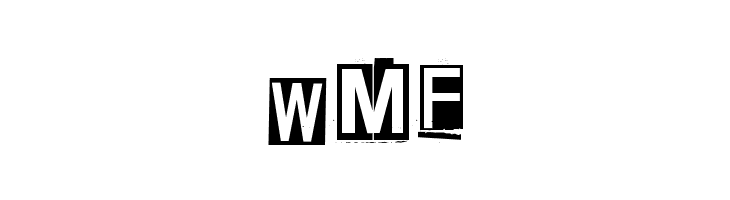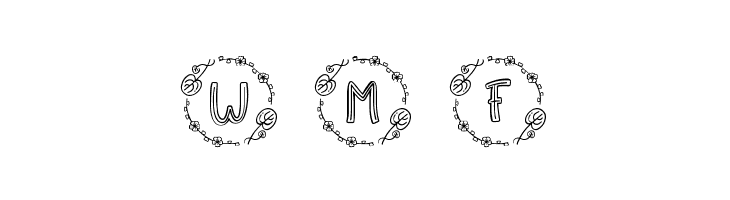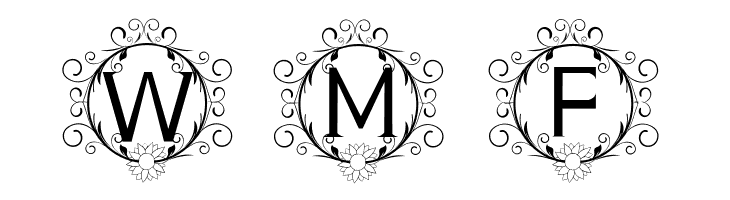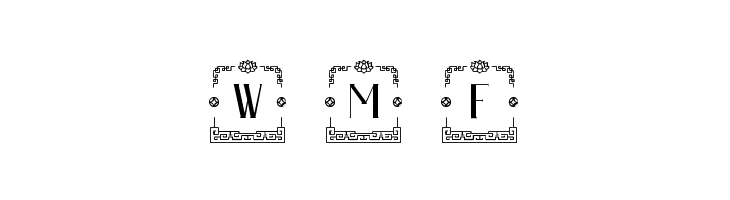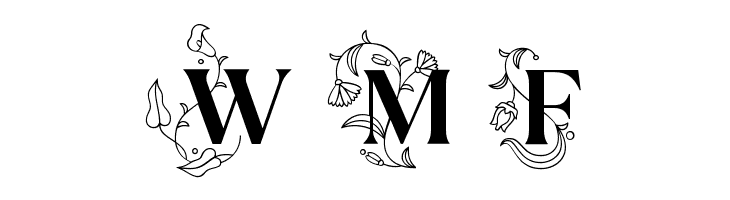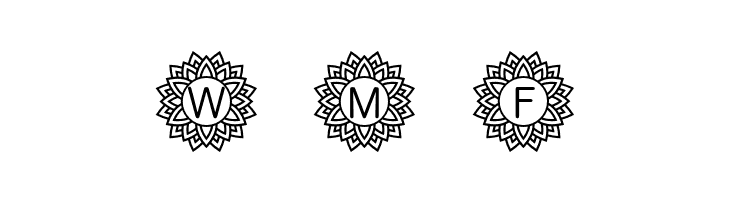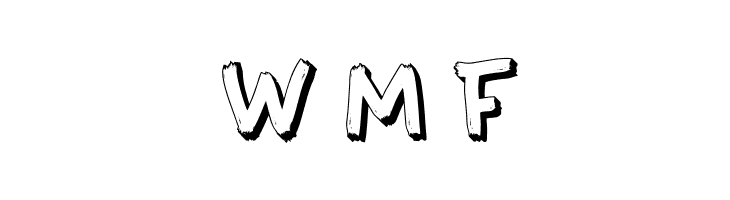
A chaotic, ransom note-style font with high contrast and eclectic character designs.
A bold, playful font with bubbly, rounded characters and whimsical cutouts.
A decorative font with uppercase letters encased in floral wreaths, offering a vintage and elegant look.
A decorative font with characters encased in ornate leaf patterns.
A decorative font with characters encased in sunflower-themed monograms.
A decorative font with intricate Chinese-inspired motifs and monogram-style frames.
A decorative font with bold characters encased in ornate circular emblems.
An ornate, decorative font with floral embellishments.
A decorative font with characters encased in intricate mandala designs.
A bold, graffiti-inspired font with a playful, energetic style and thick outlines.